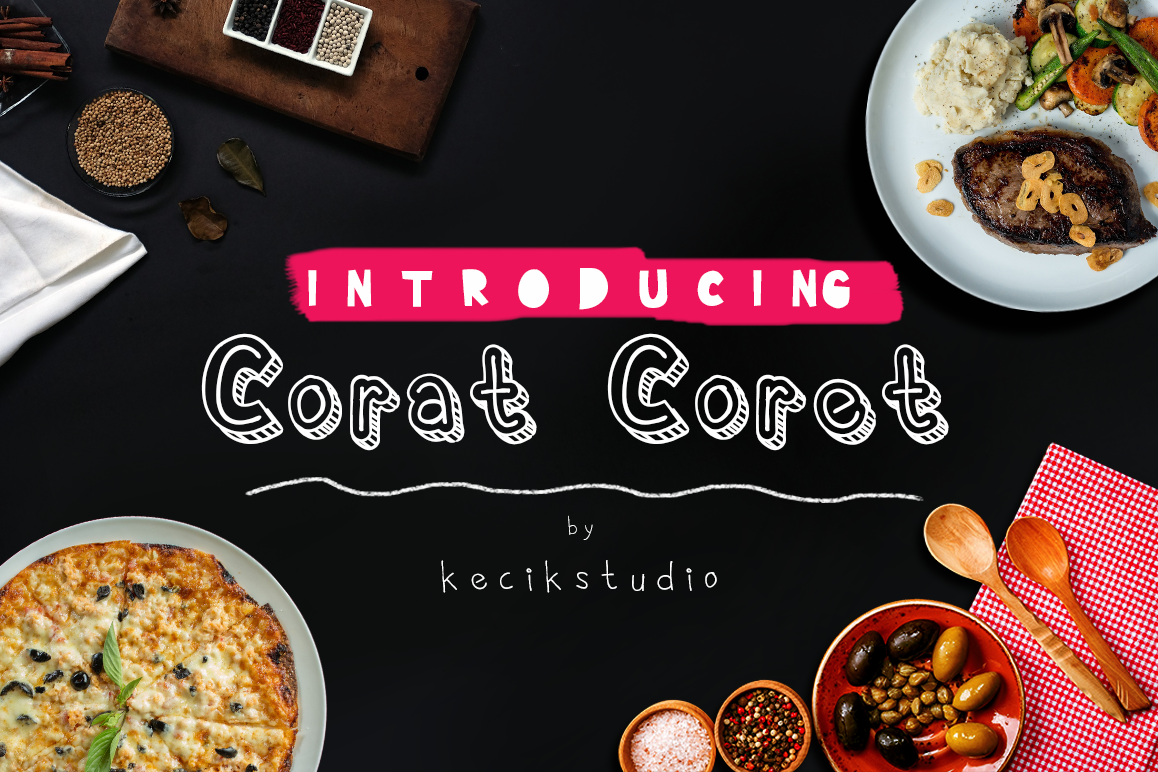
Corat Coret
Corat Coret Black
Corat Coret Complete One
Corat Coret Complete
Corat Coret Outline
Corat Coret Regular
Corat Coret Shadow
Introducing new font from us! Corat Coret!! Newest font layers inspired from kids doodles. Corat Coret come with upper & lower case, numbers, punctuation & ligature. It's suitable for the purposes of posters, branding, t-shirts design, packaging & flayer.Corat Coret comes with 5 different fonts: Regular, Black, Outline, shadow, complete & complete one.
Corat Coret Font:
• Corat Coret Regular
• Corat Coret Black
• Corat Coret Outline
• Corat Coret Shadow
• Corat Coret Complete
• Corat Coret Complete One